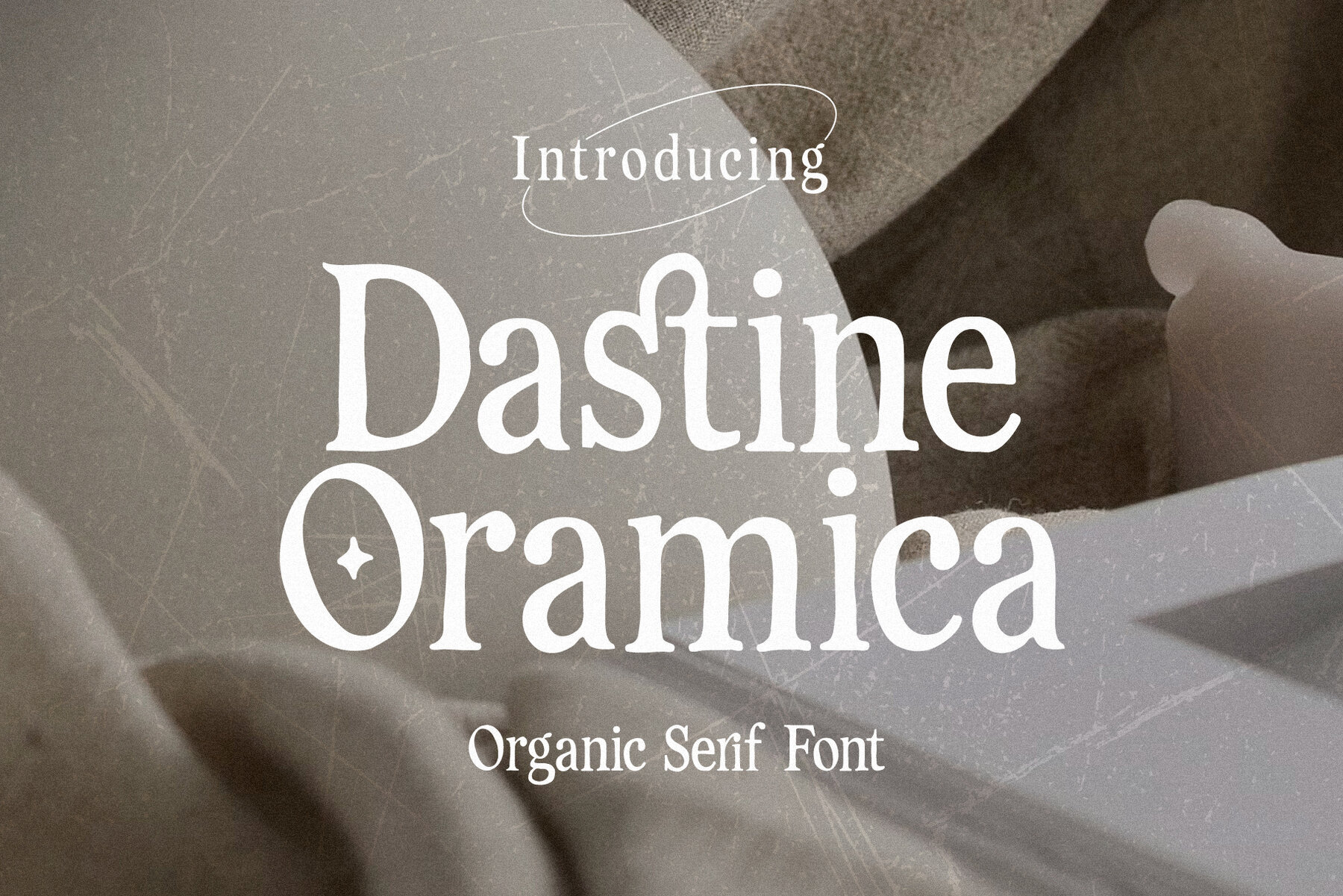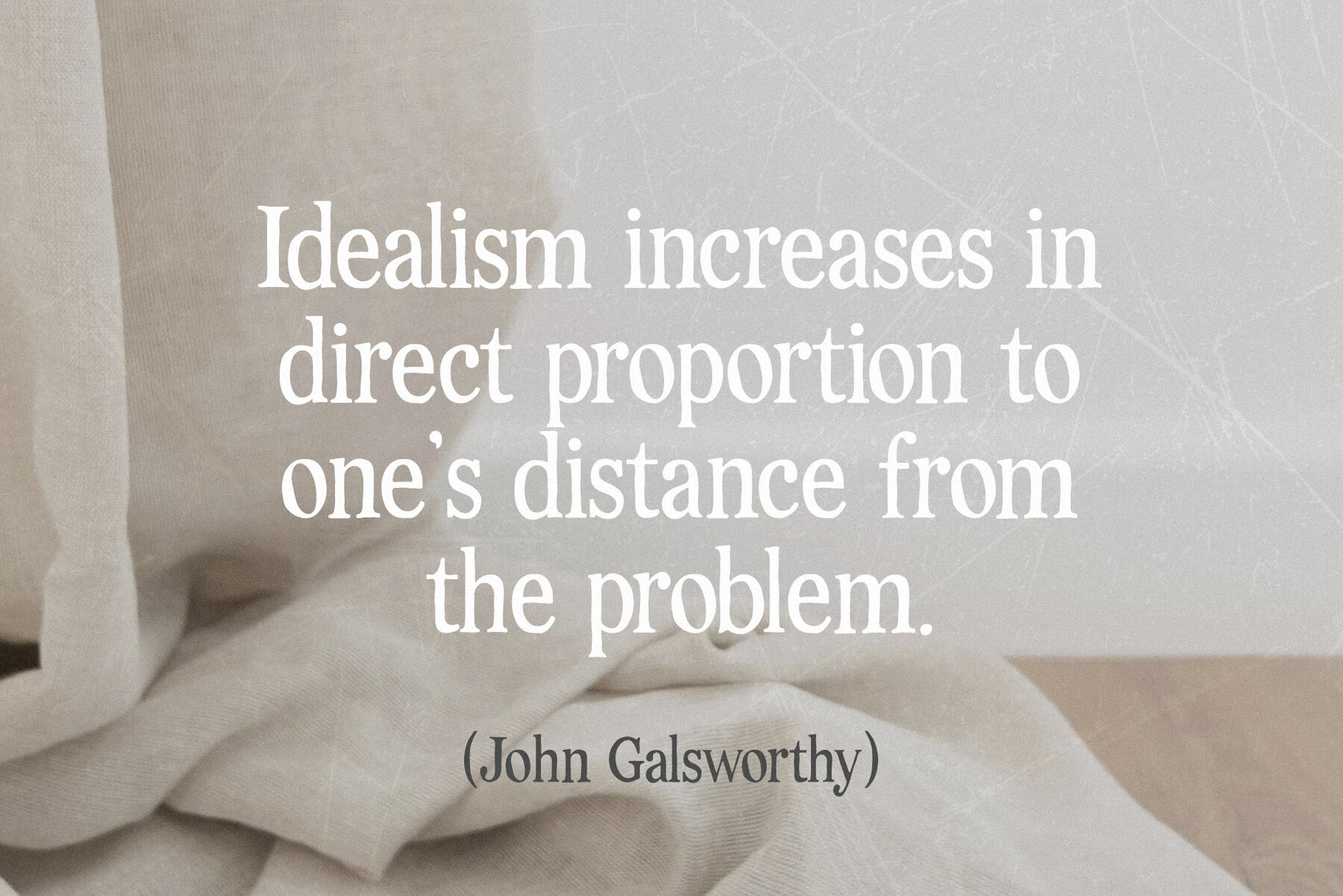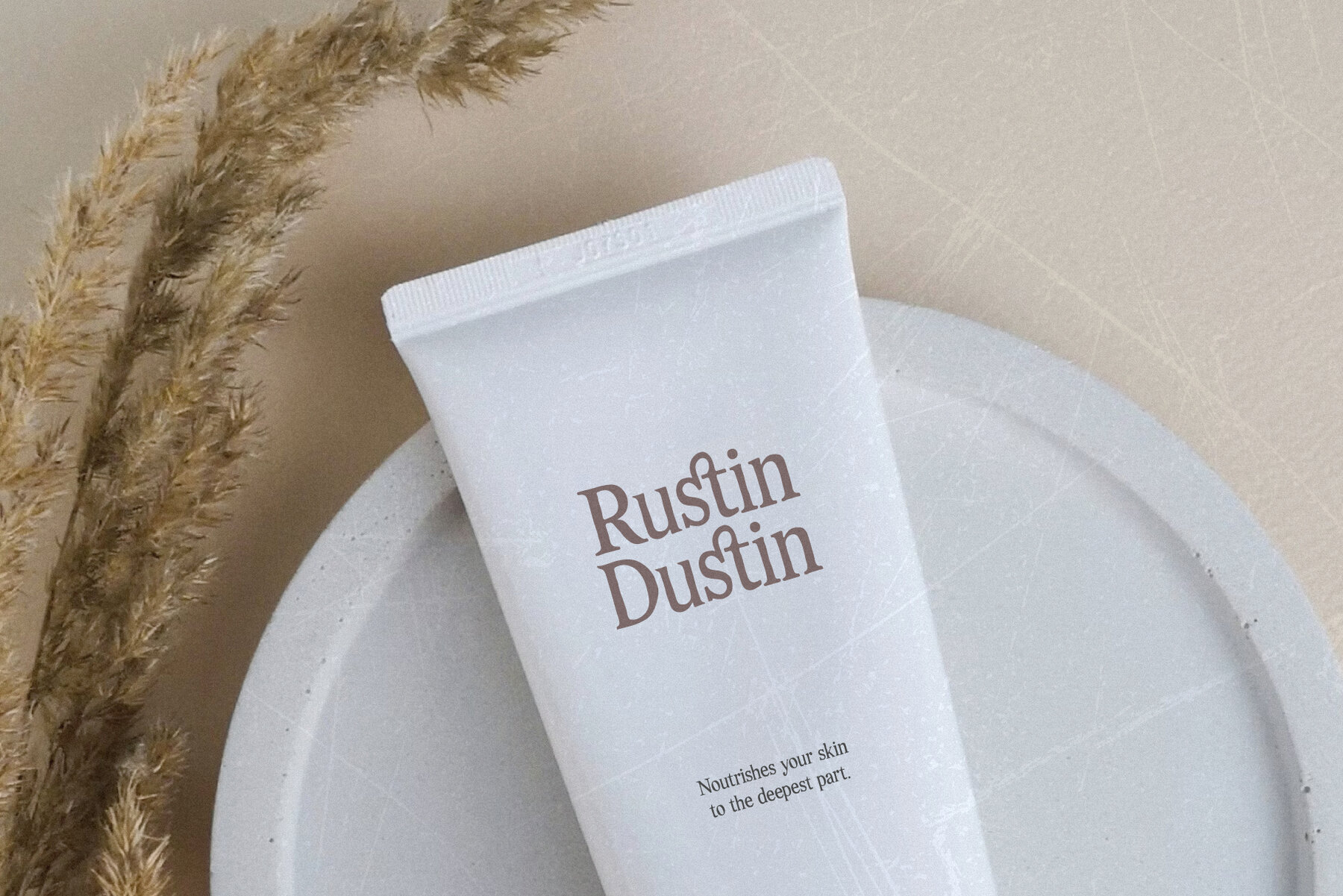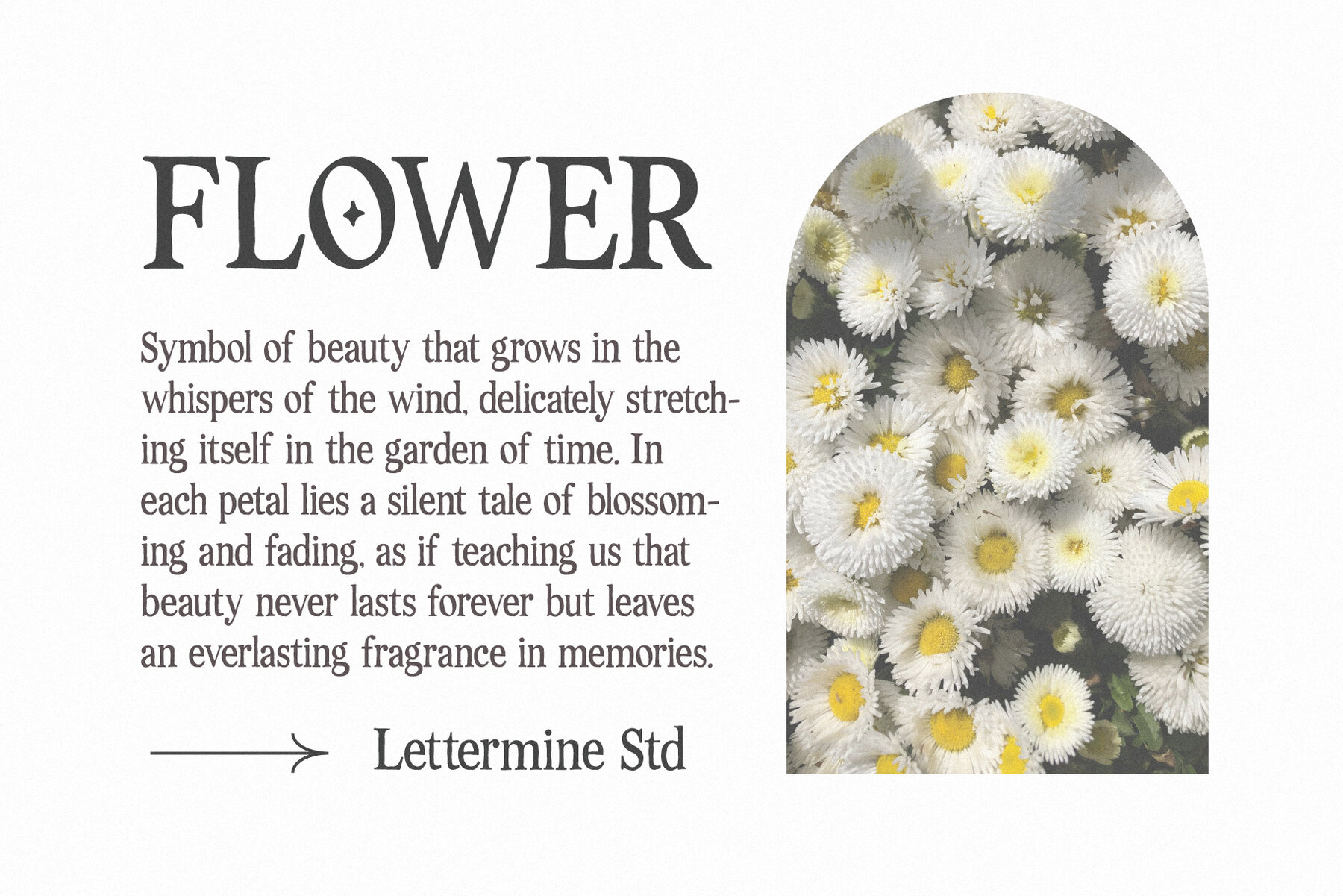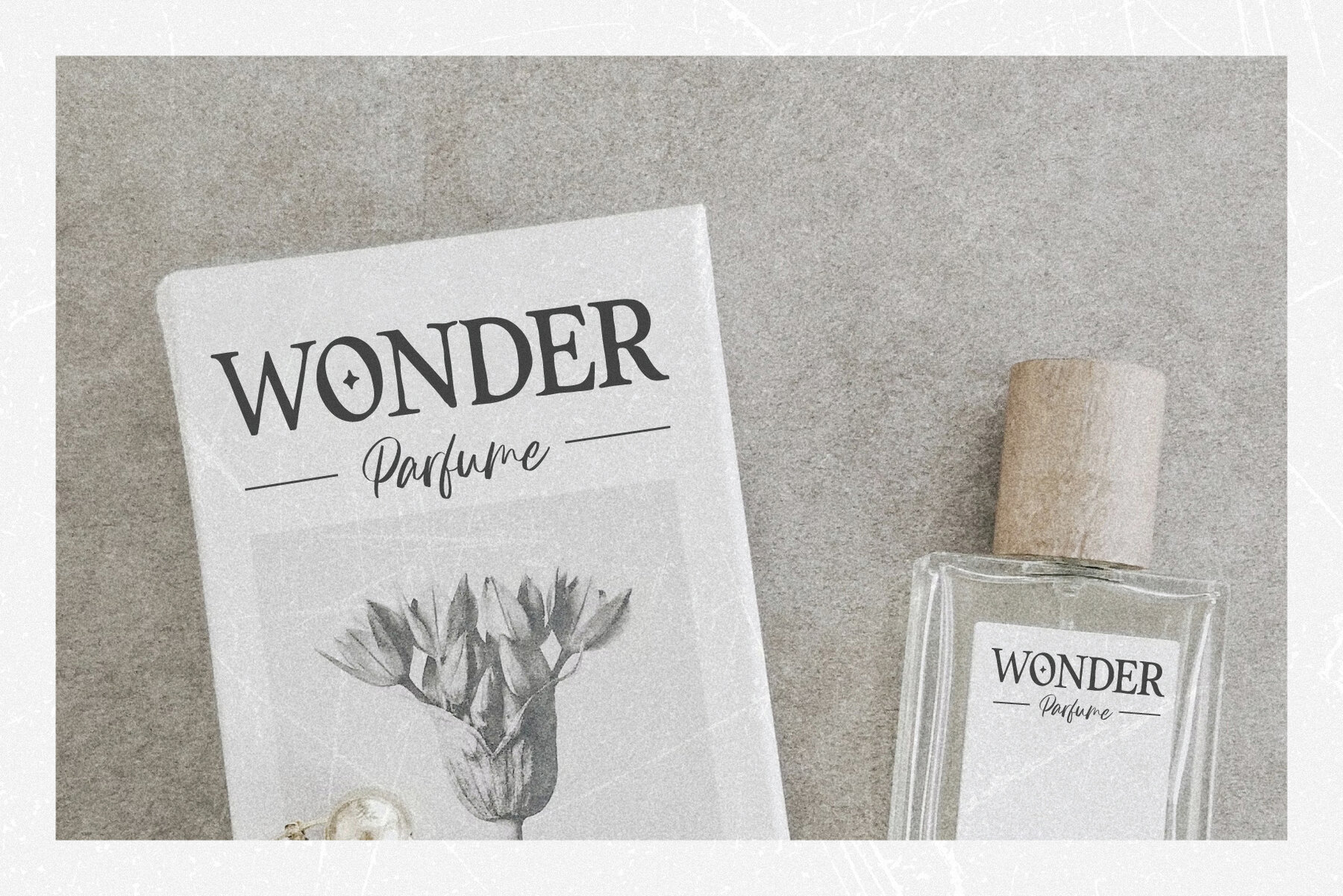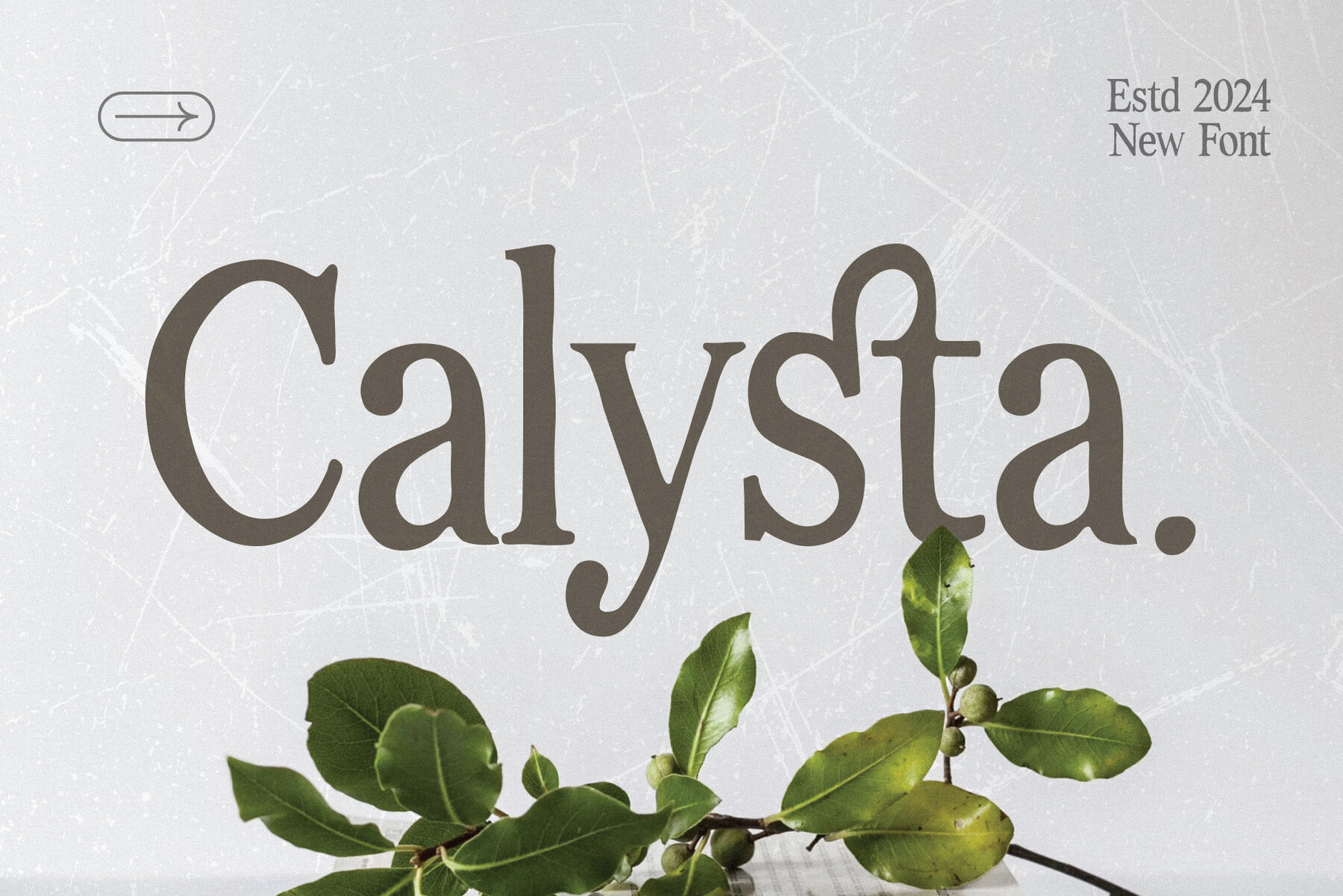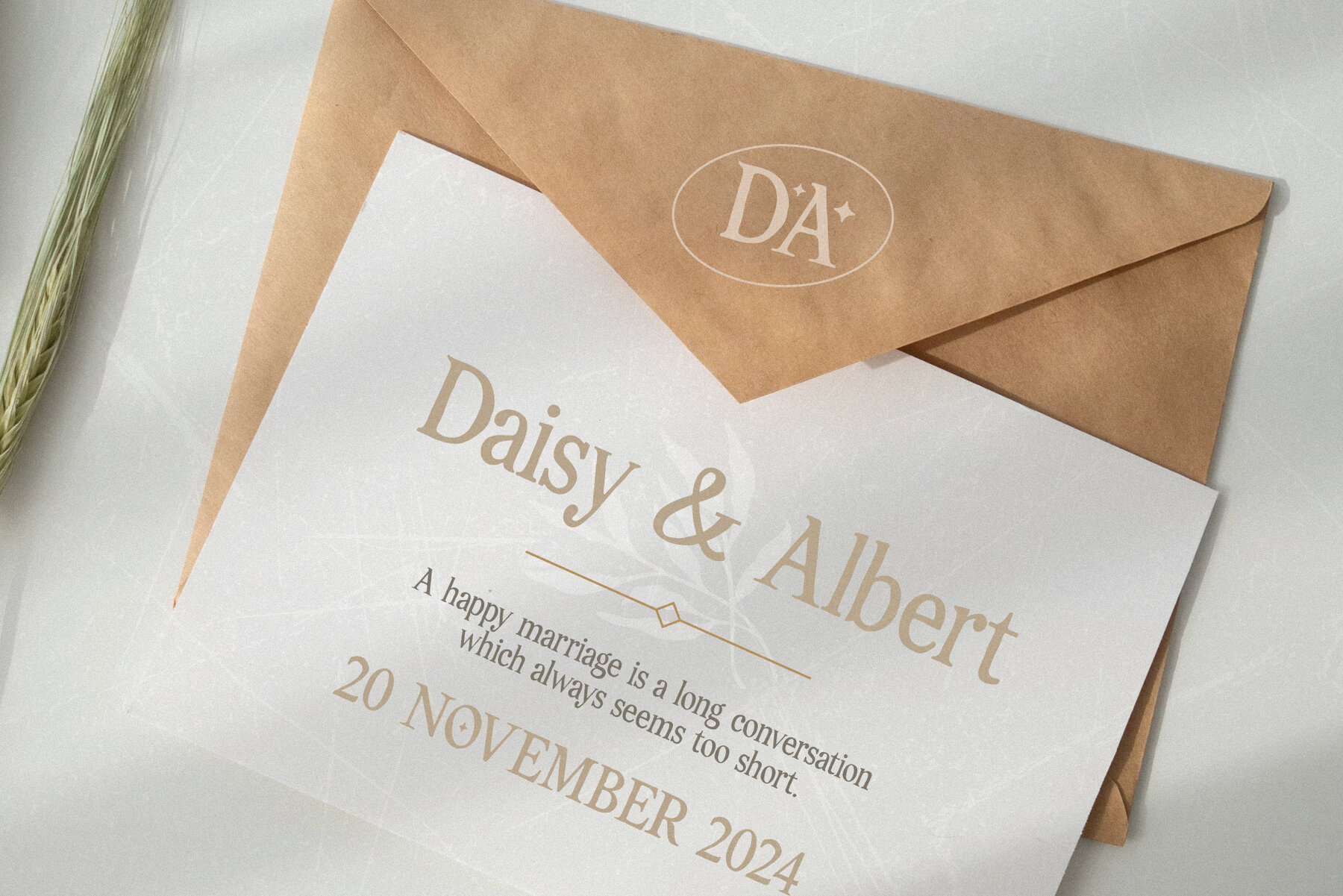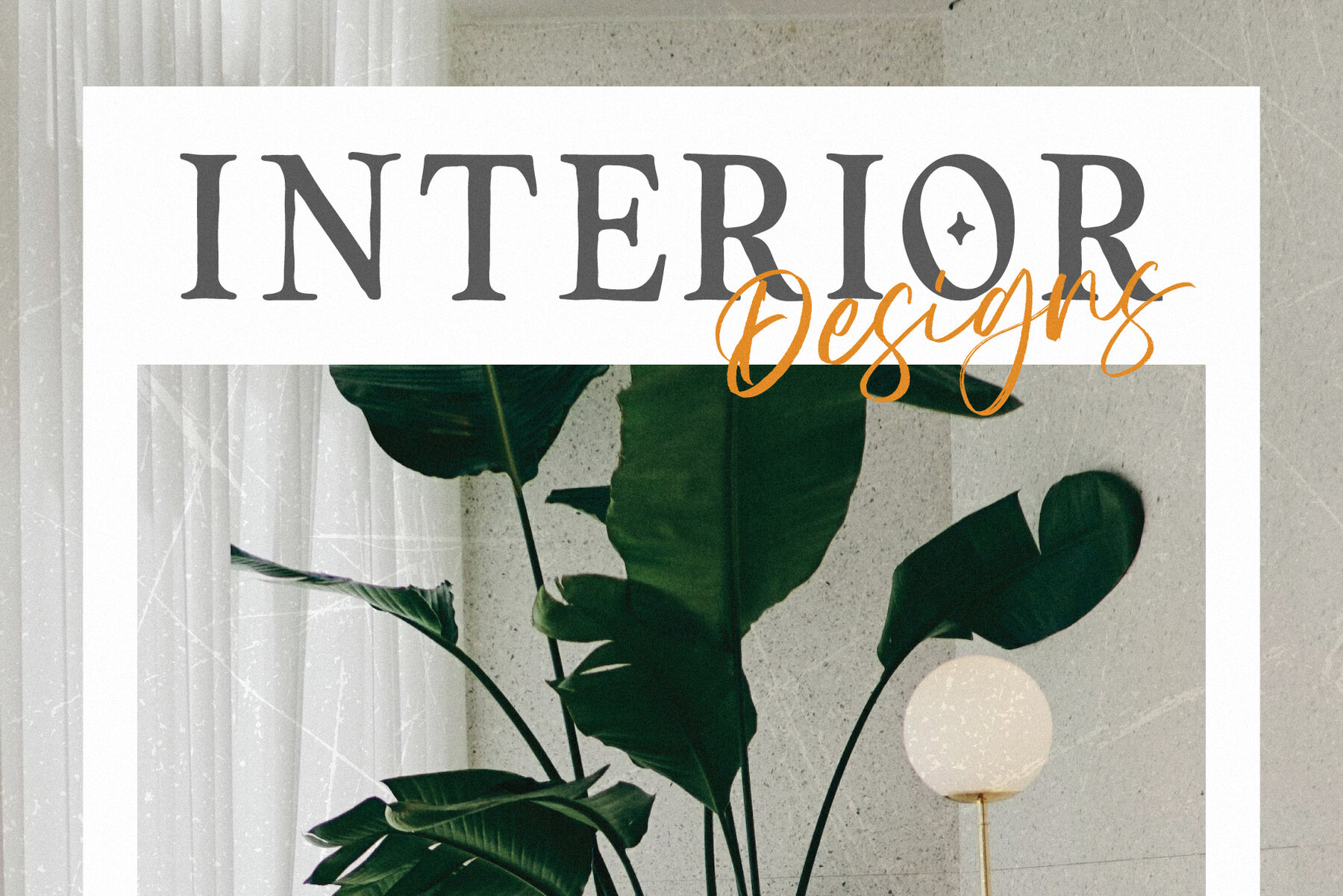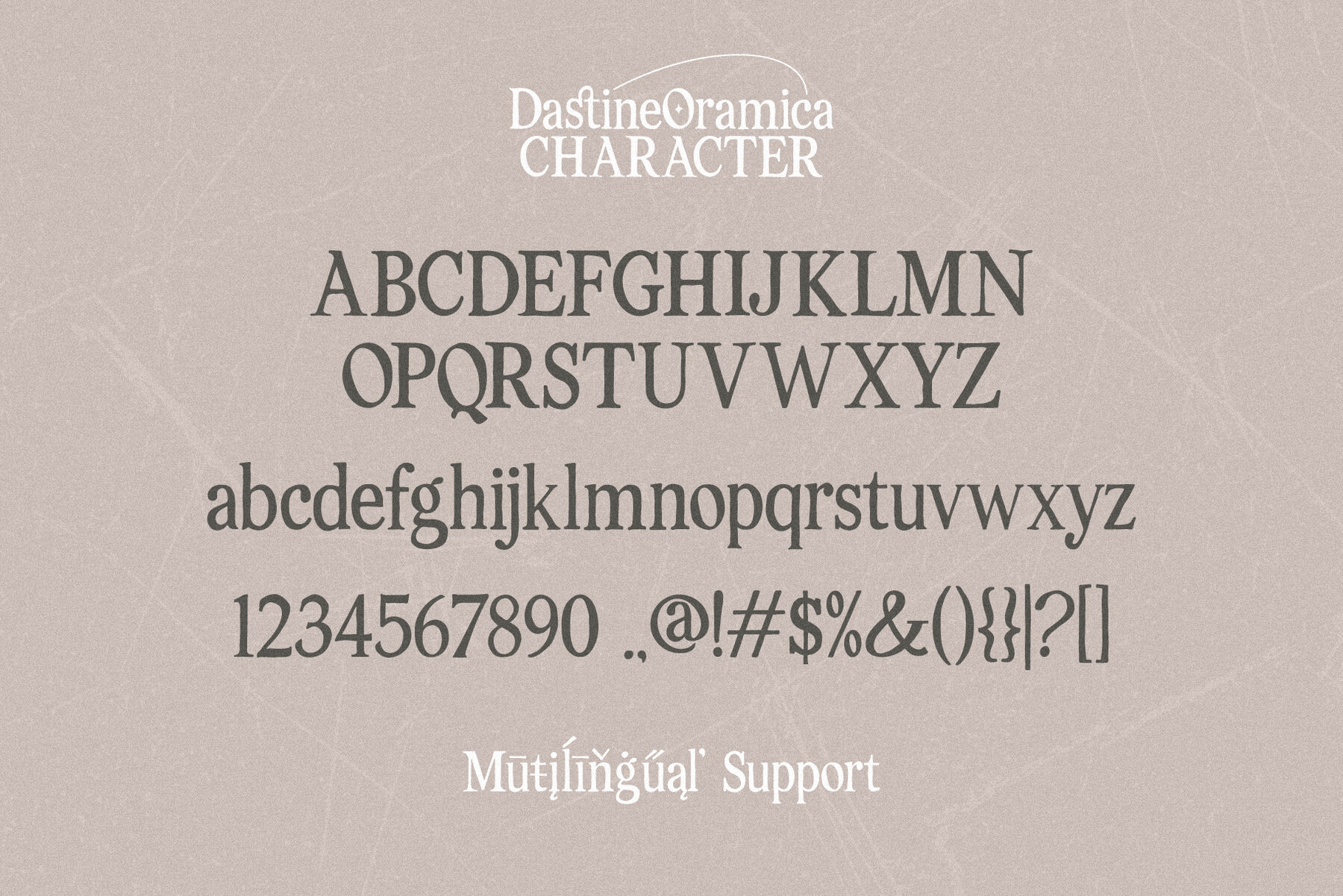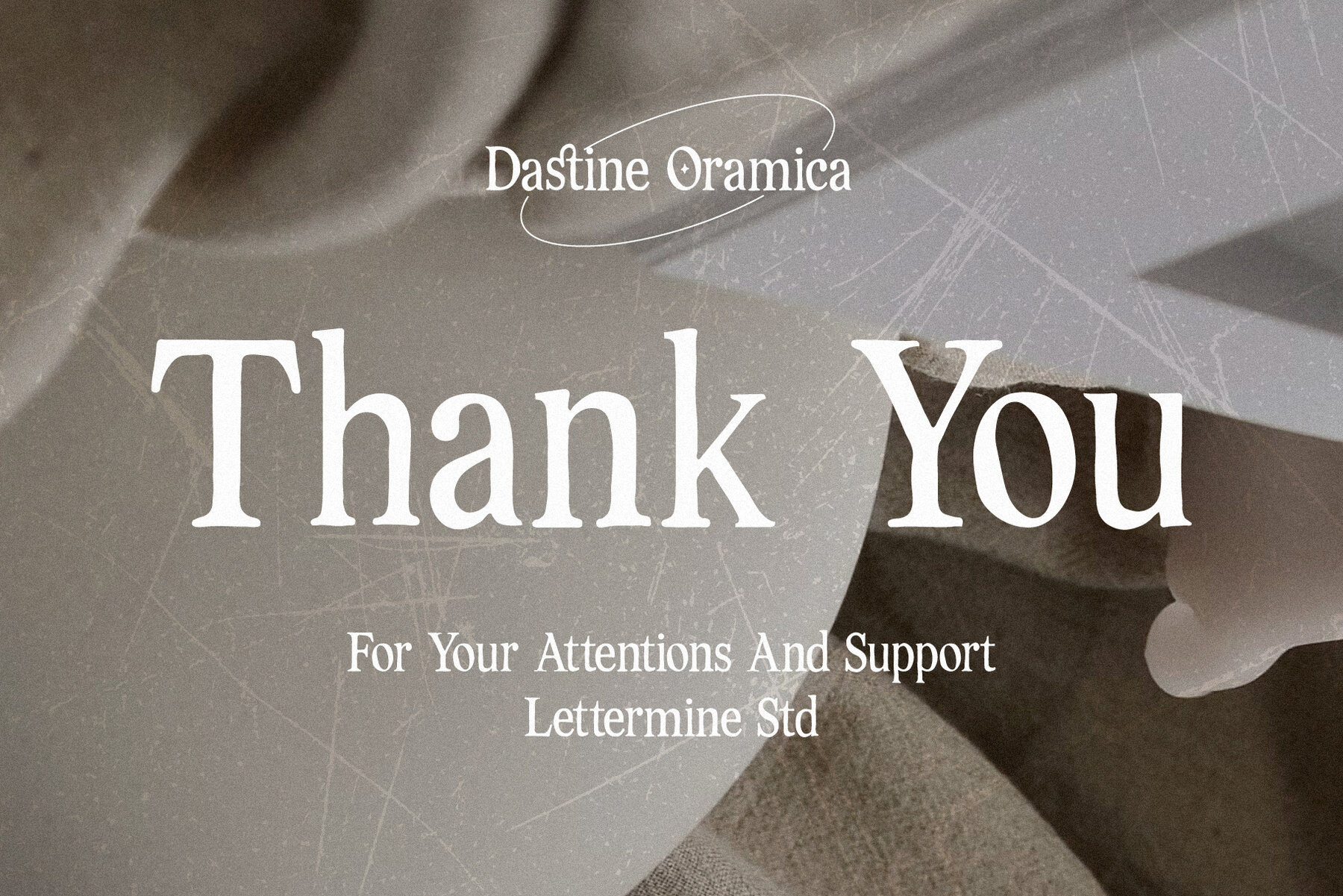
Dastine Oramica Font
Dastine Oramica Regular
Dastine Oramica Organic Serif Font Introducing Dastine Oramica, a captivating and sophisticated organic serif font that adds a touch of elegance to your projects. Crafted with precision and care, this font is designed to make your text stand out with a unique and natural flair. Key Features: Uppercase and Lowercase: Dastine Oramica offers a harmonious blend of uppercase and lowercase characters, providing versatility in your design work. Ligatures: Elevate your typography with seamlessly connected characters, enhancing the overall flow and aesthetics of your text. Alternatives: Explore various stylistic alternatives to customize the look and feel of your text. Dastine Oramica gives you the creative freedom to experiment and achieve the perfect visual balance. Multilingual Support: Reach a global audience effortlessly with Dastine Oramica's extensive multilingual support. Communicate your message effectively in different languages. Perfect for: Add a touch of nature-inspired charm to your projects with Dastine Oramica. Download now and experience the beauty of organic serifs.